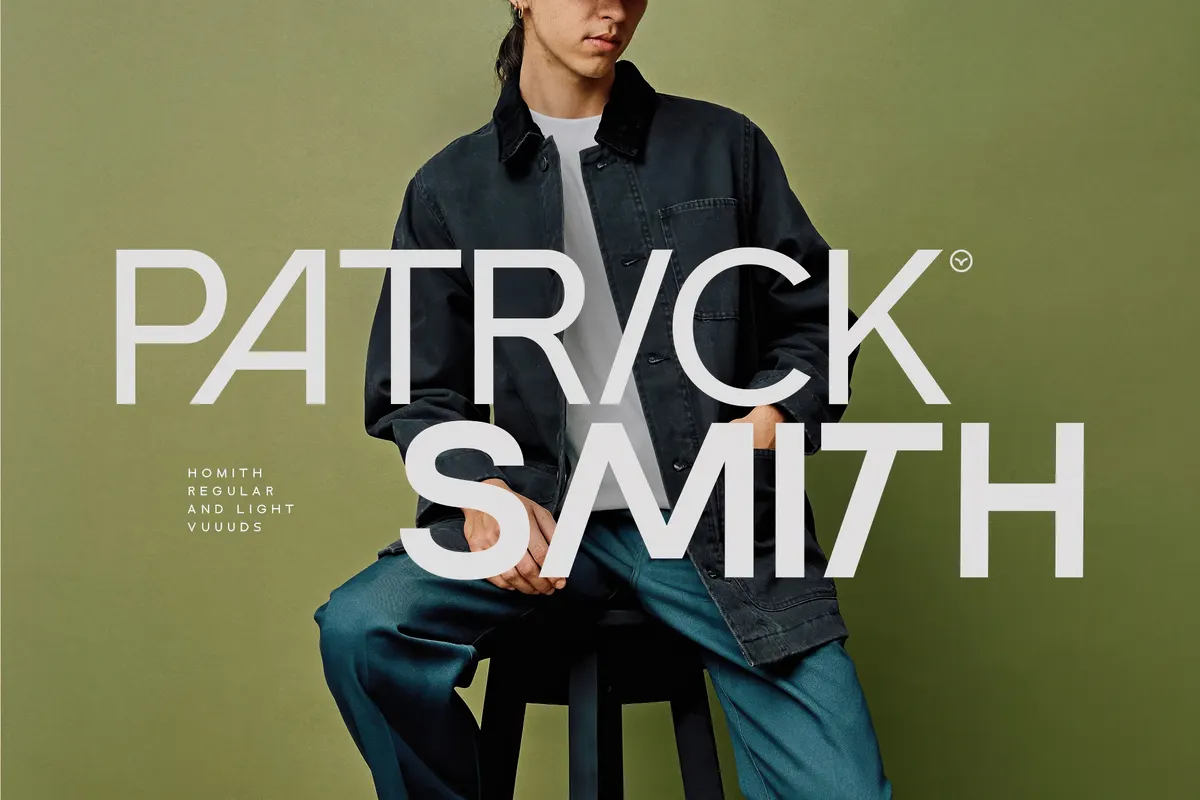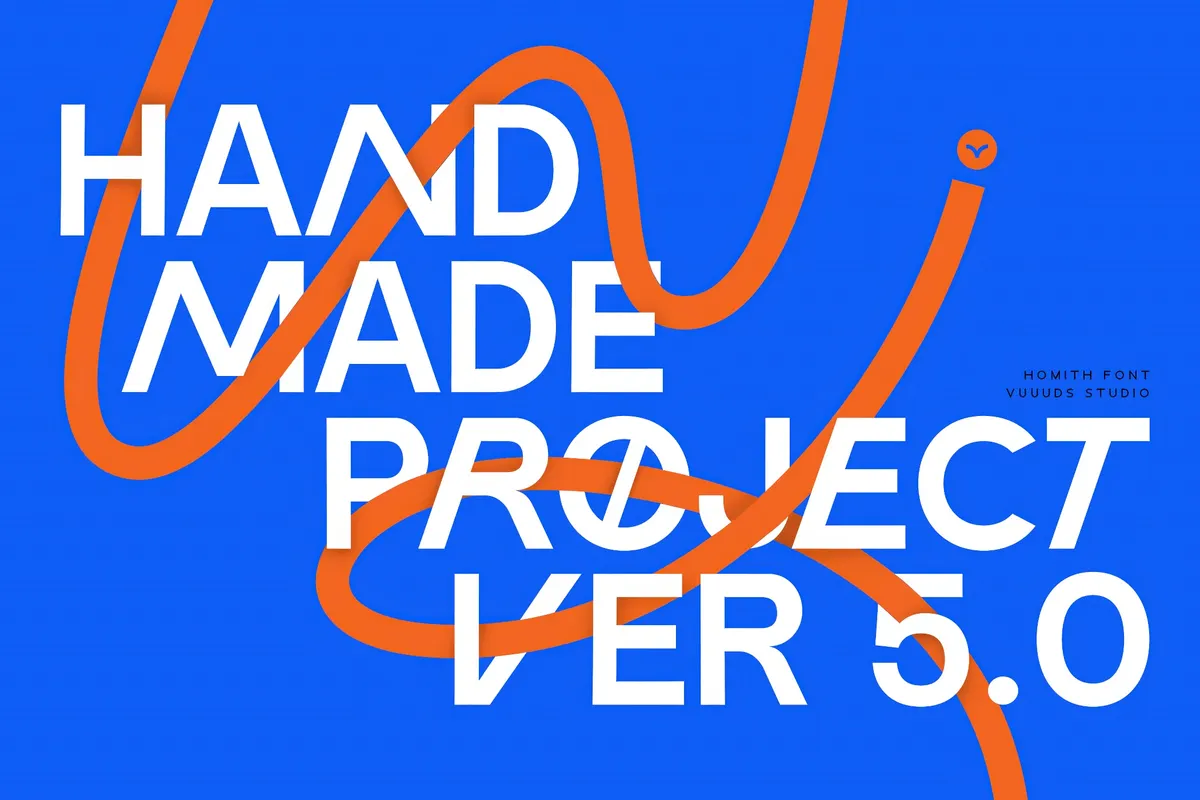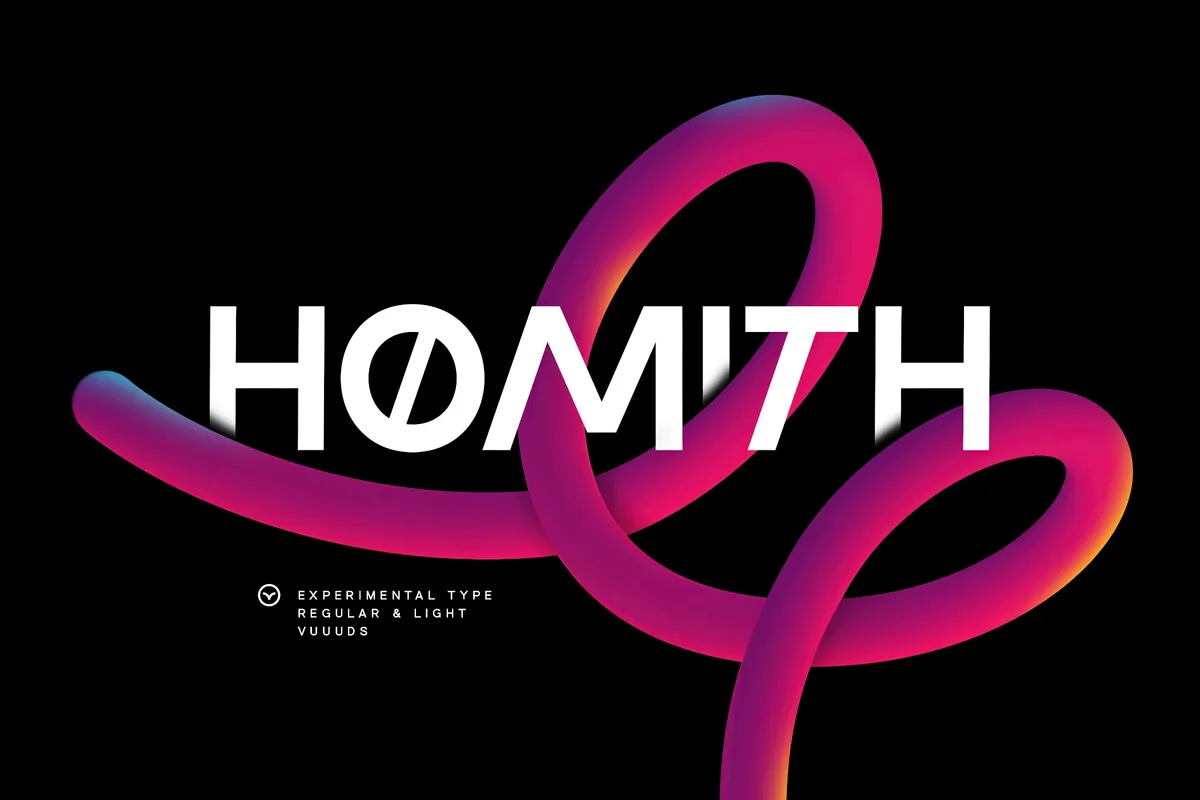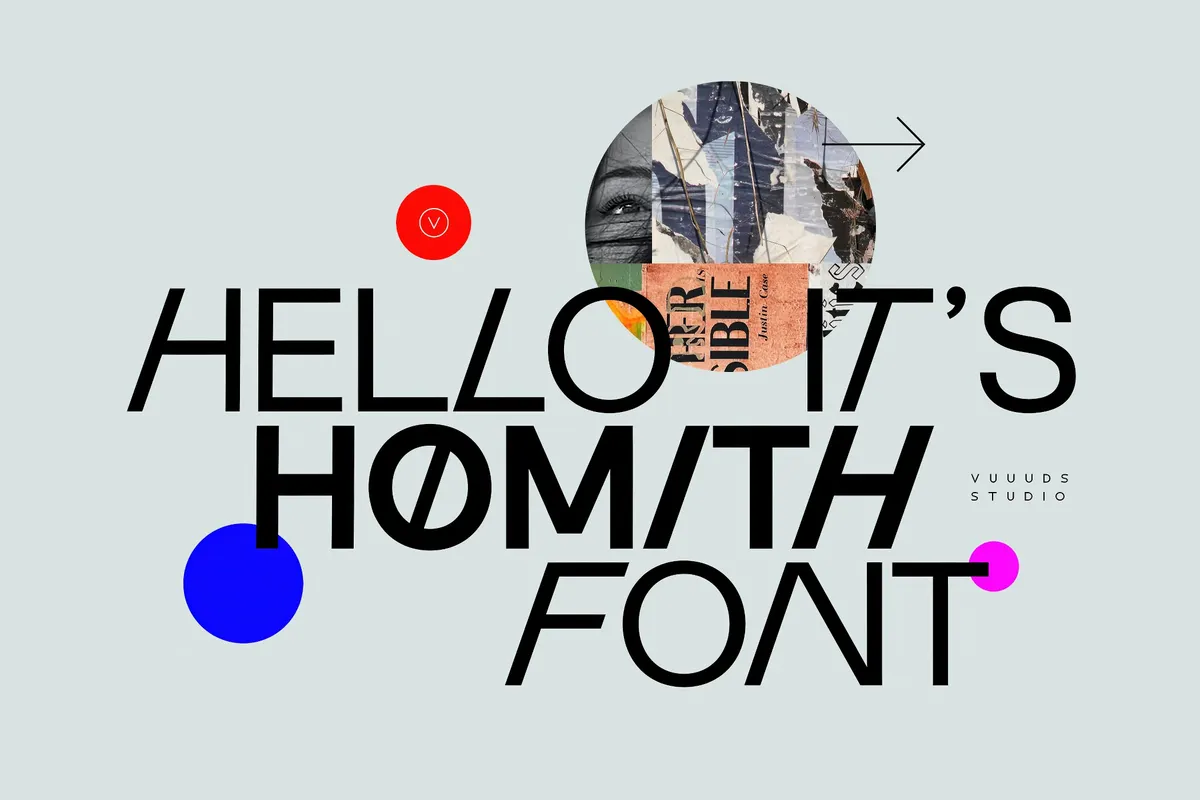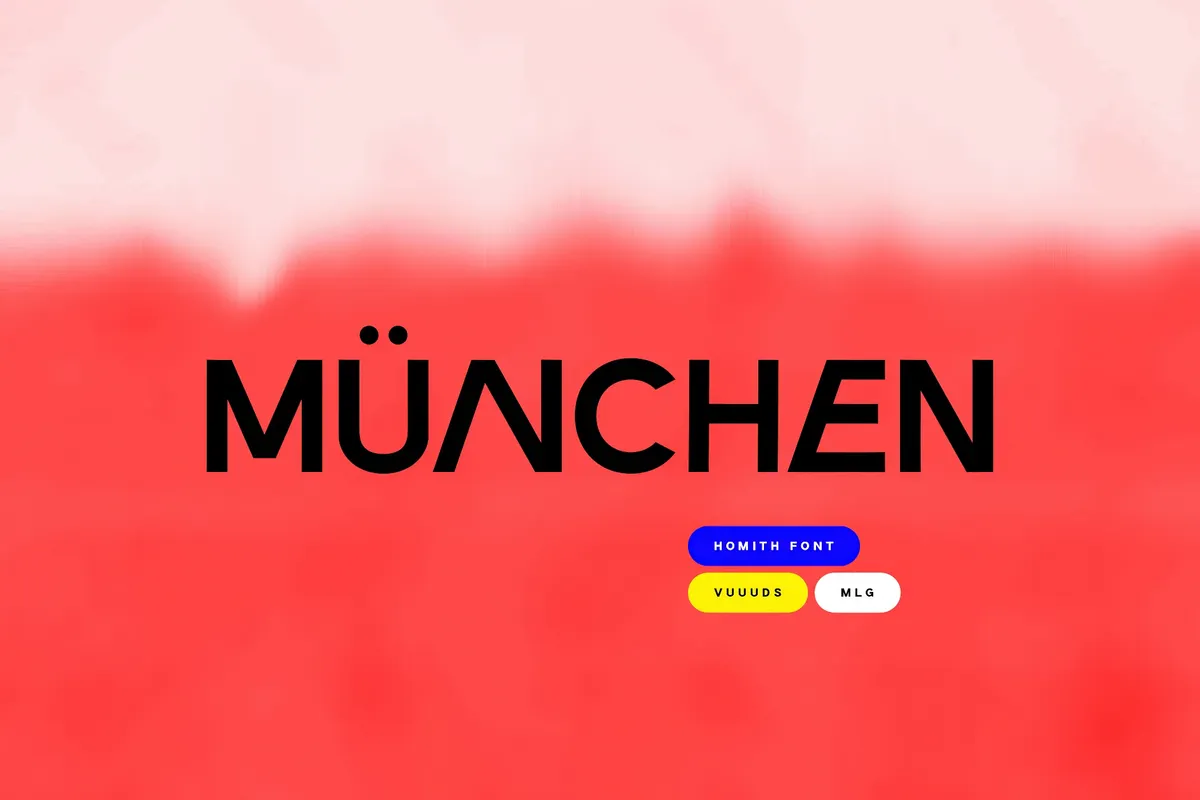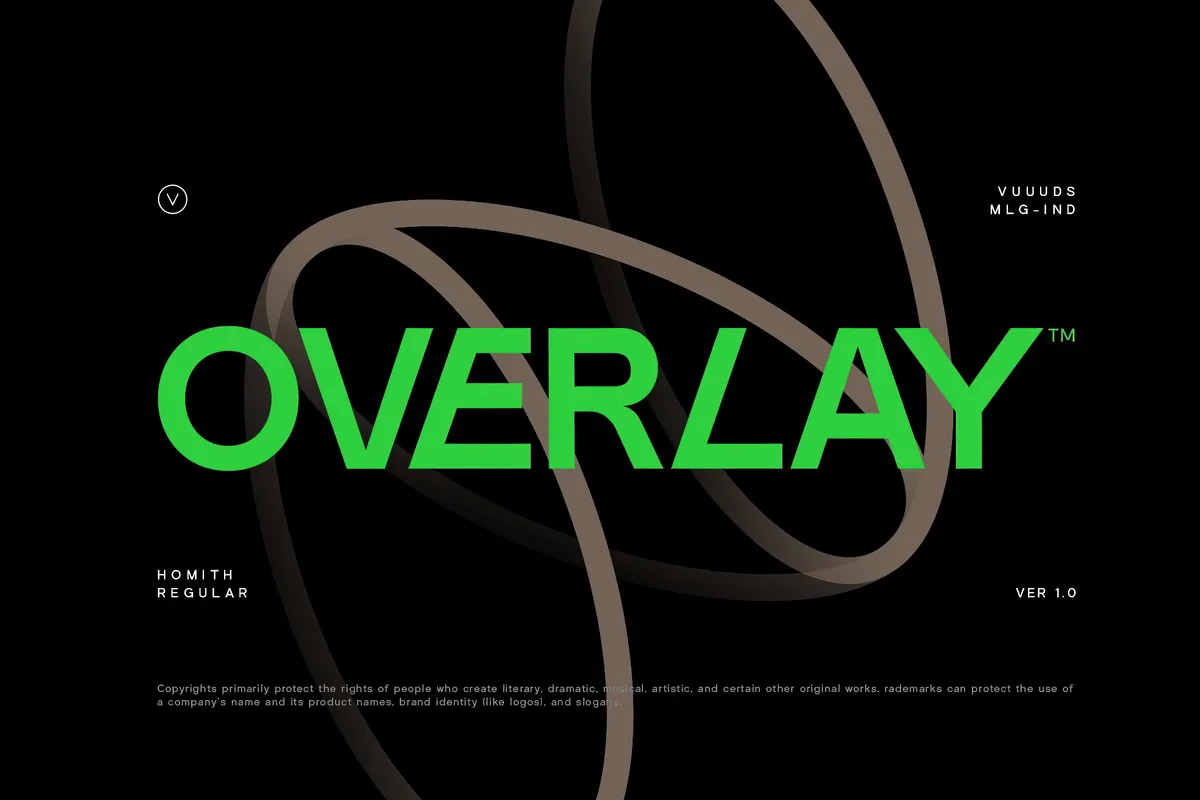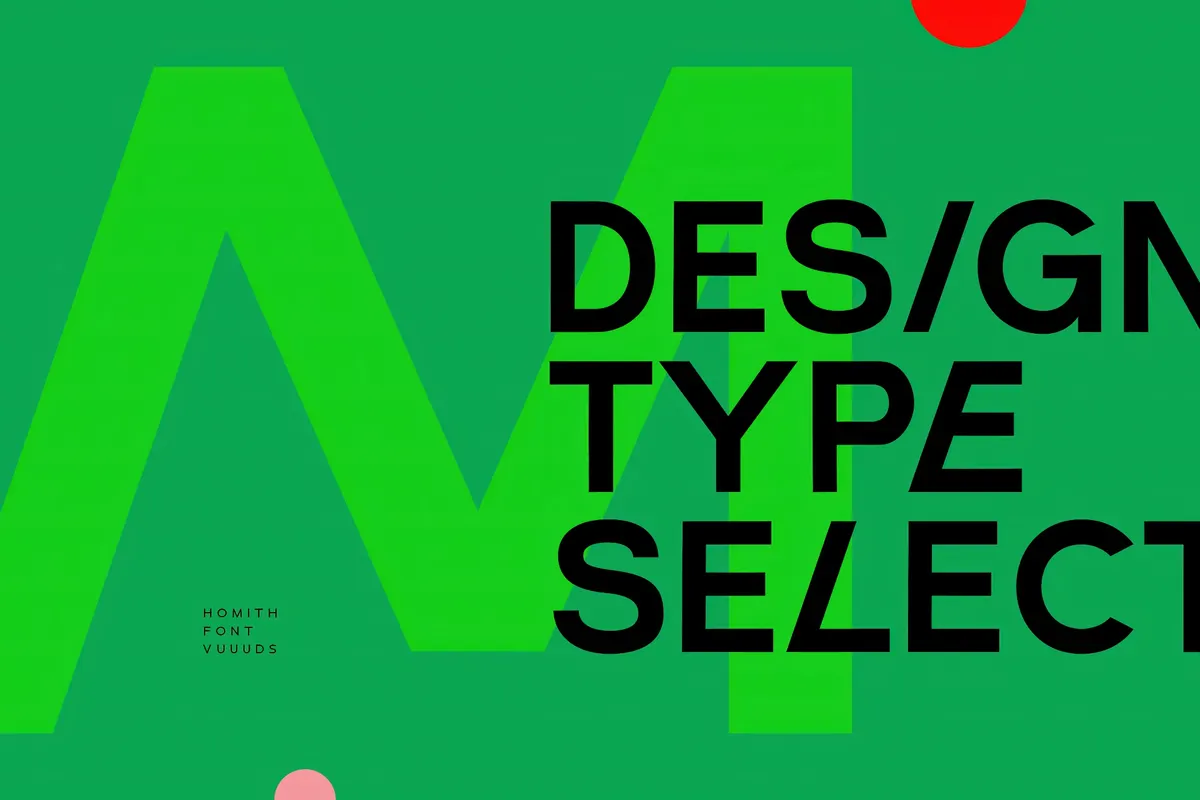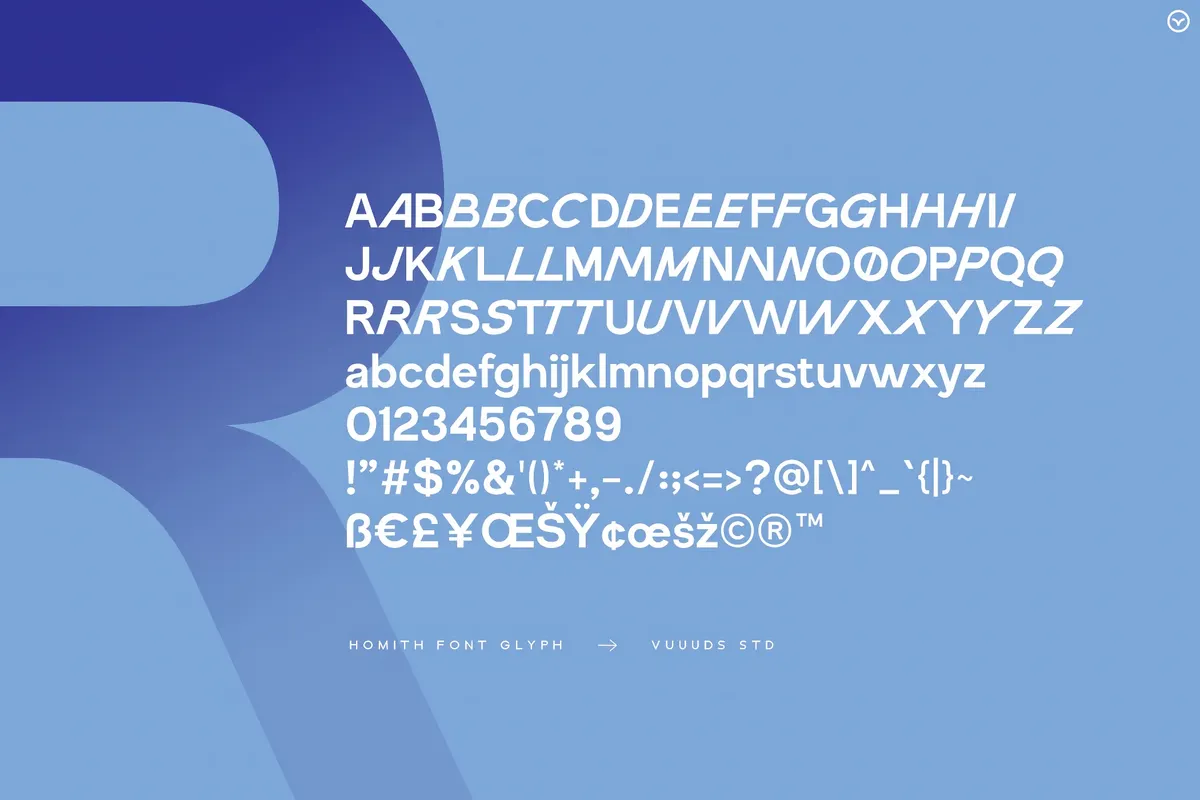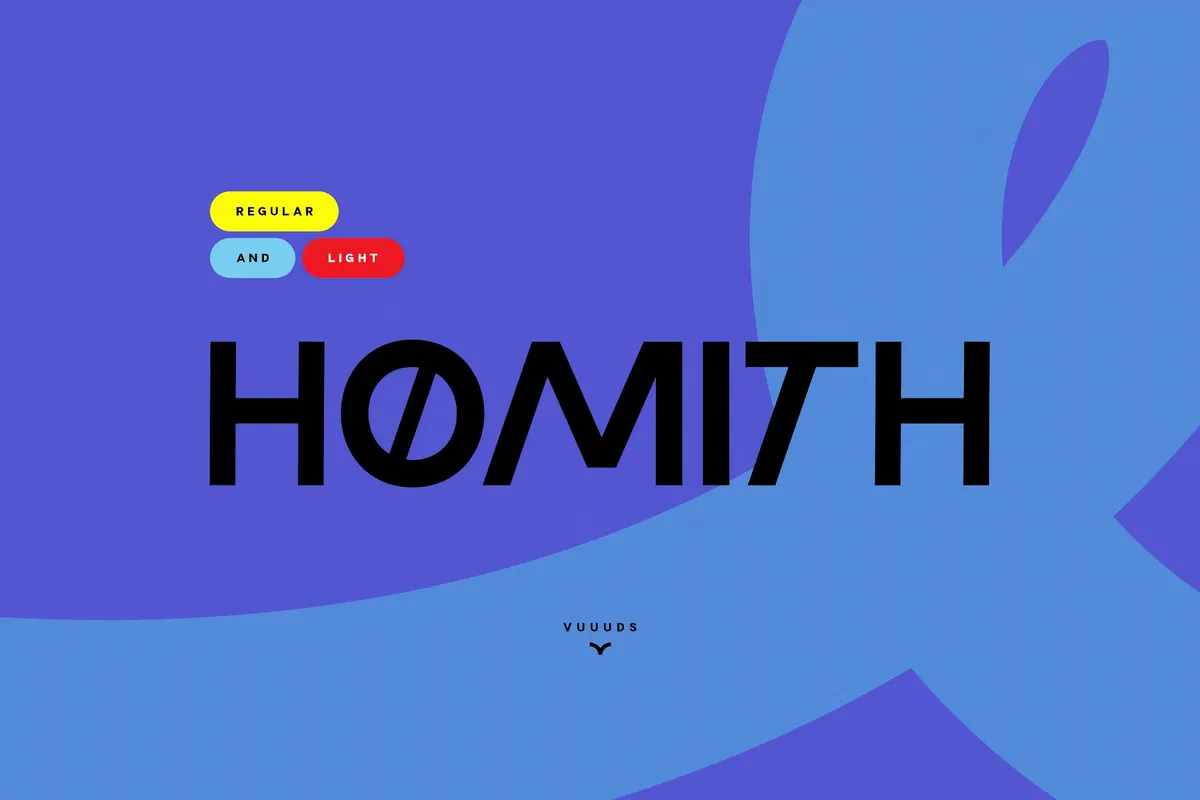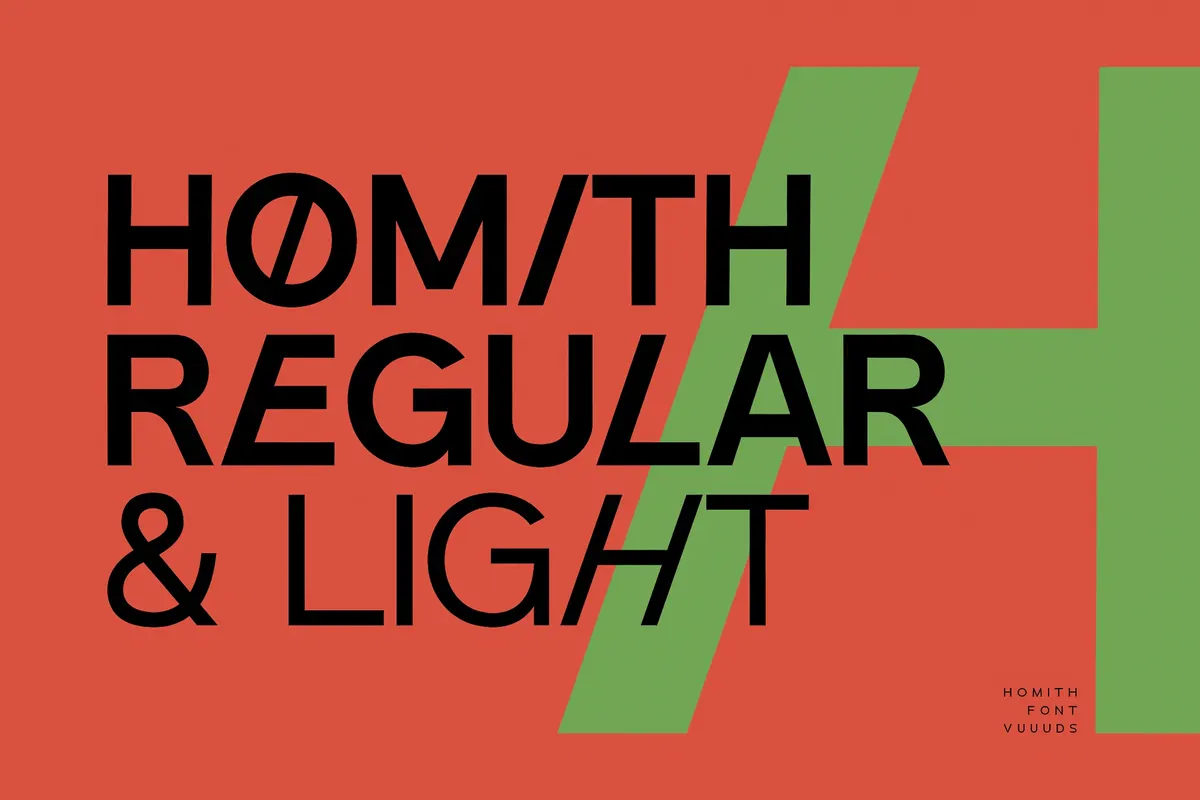
Homith - Geometric Sans Serif
Homith is a geometric sans serif font drawn on a tall, narrow frame, with circular bowls, monoline strokes, and a high waist that stretches the caps upward. The construction is compass-and-ruler clean, the joins are open, and the two stylesgive a light display cut alongside a steadier text weight. A small bird terminal on the lowercase adds one hand-drawn note to an otherwise mechanical alphabet.
It works just right for restrained, contemporary layouts. Use it for architecture and studio branding, fashion lookbooks, editorial headlines, gallery and exhibition graphics, minimal packaging, tech product pages, and poster typography.
- 2 styles;
- uppercase & lowercase;
- numerals, punctuation & symbols;
- multilingual support;